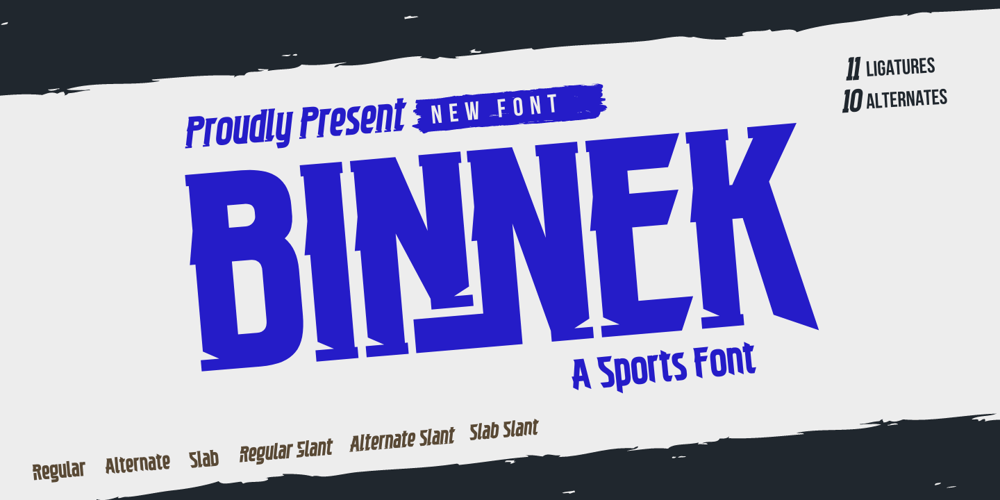
Binnek Font Family was designed by Rozikan and published by Twinletter. Binnek contains 6 styles and family package options. Binnek is the perfect font for any sporting event. This font, combined with the immense popularity of outdoor sports, has generated a huge demand for typography solutions suitable for use in outdoor advertising media. Binnek features 6 different styles from sans, and slabs, to sharp edges, as well as beveled variations, the result is a versatile display typeface that can be used in high-speed situations while still taking advantage of a contemporary tone. Using this font also tells everyone that you mean business.What’s Included :- File font – All glyphs Iso Latin 1- Alternate, Ligature- Simple installations- We highly recommend using a program that supports OpenType features and Glyphs panels like many Adobe apps and Corel Draw, so you can see and access all Glyph variations.- PUA Encoded Characters – Fully accessible without additional design software.- Fonts include Multilingual support